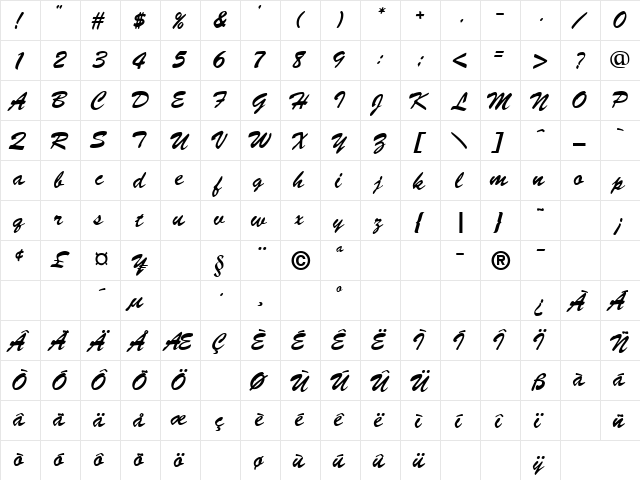
Signature Regular Font Preview
Signature Regular
Signature Regular Font Details
Design Context for Signature Typeface
Signature is a composed and adaptable typeface that performs quietly and consistently across a wide range of design contexts.
Pro Tip: Use Signature in both headline and body roles to test its range before committing to a single application.